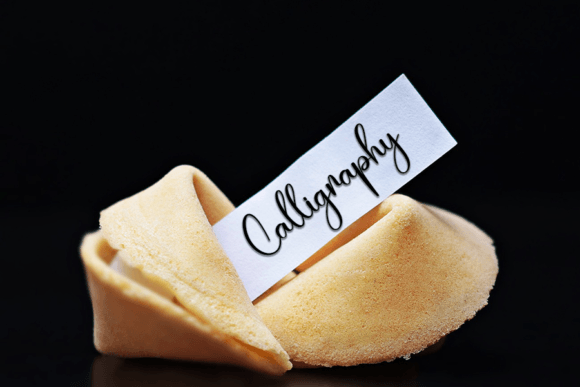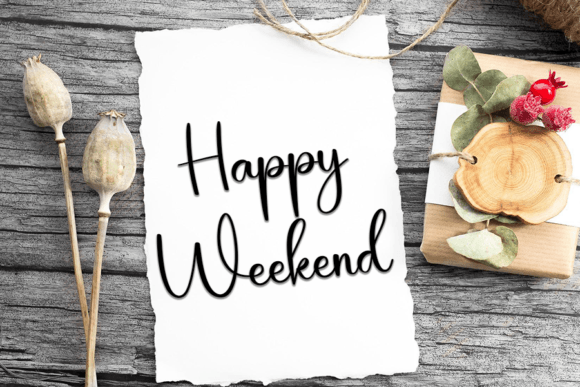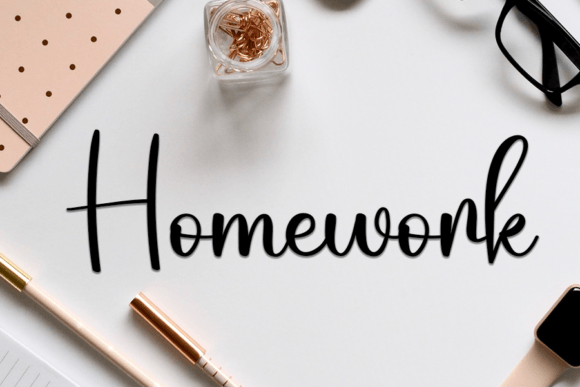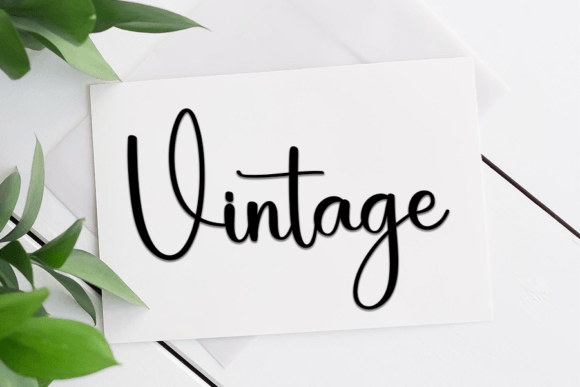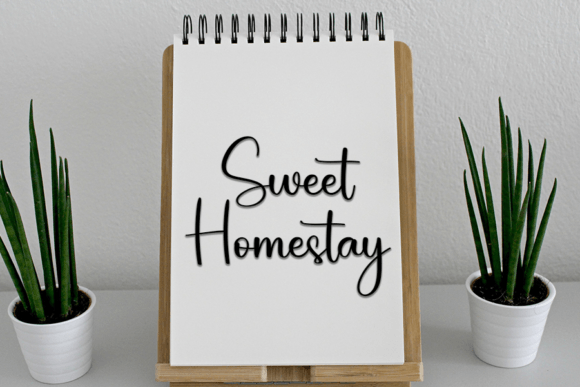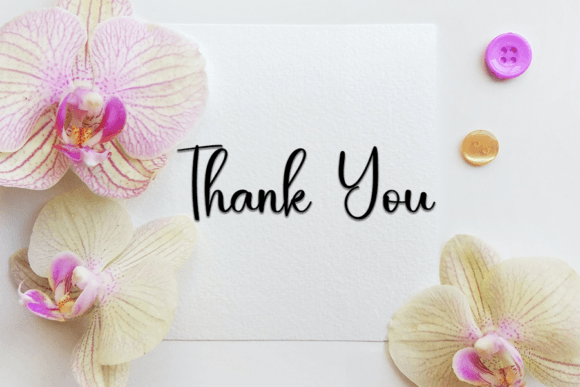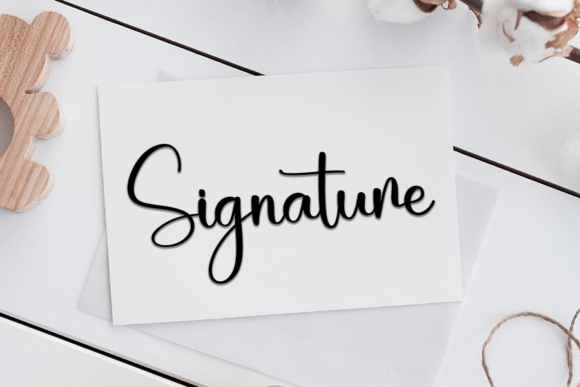
Basmallah Font
About Basmallah Font
The Basmallah Font Download is a delicate handwritten script crafted with care and precision. Its smooth lines and organic curves create a cool, modern look while maintaining timeless elegance. This handwritten style is versatile, making it an excellent choice for both personal and professional design projects. Whether you are working on branding, event invitations, or packaging design, the Basmallah Font Download adds a unique and graceful touch.
Handwritten fonts stand out because they capture the beauty of natural handwriting. With Basmallah, every character feels handcrafted, yet clean enough to maintain readability. Designers love its ability to bring warmth and authenticity to creative work while still feeling polished.
Features of Basmallah Font
The Basmallah Font Download comes with powerful features designed to meet the needs of modern creators:
• Elegant handwritten style with unique detailing
• Uppercase and lowercase characters included
• Complete set of numbers and punctuation
• Multilingual support for global design projects
• PUA-encoded for easy access to alternates and glyphs
These features make Basmallah both beautiful and practical, ensuring it works smoothly across different types of design projects.
Best Uses for Basmallah Font
The Basmallah Font Download adapts well to a variety of design needs. Here are some popular applications:
• Invitations – Ideal for wedding cards, birthday parties, and elegant announcements
• Branding – Perfect for food packaging, boutique logos, and café menus
• Digital Design – Social media posts, blog headers, and website banners
• Print Projects – Posters, greeting cards, business stationery, and flyers
• Creative Crafts – Journals, planners, scrapbooks, and handmade projects
Because of its balance between elegance and clarity, the Basmallah font can be applied to almost any design project that needs a personal, handwritten touch.
Why Choose Basmallah Font?
The Basmallah Font Download offers more than just beauty—it delivers versatility and emotional impact. Many handwritten fonts are either too decorative to be practical or too simple to stand out. Basmallah strikes the perfect balance. It has a natural, flowing style that feels authentic while staying easy to read.
Designers often choose Basmallah because it enhances branding projects with charm, brings romance to invitations, and creates an artisanal feel for packaging. Its timeless style ensures that it doesn’t go out of fashion, making it a long-lasting asset for your font collection.